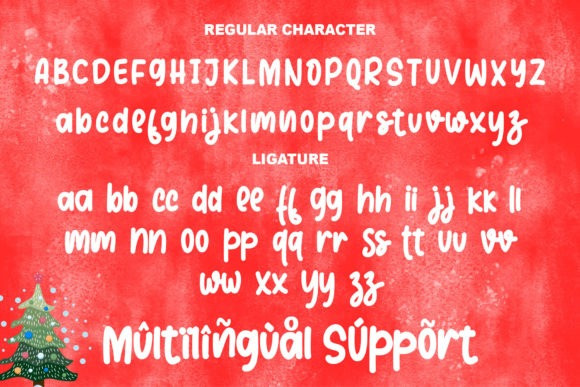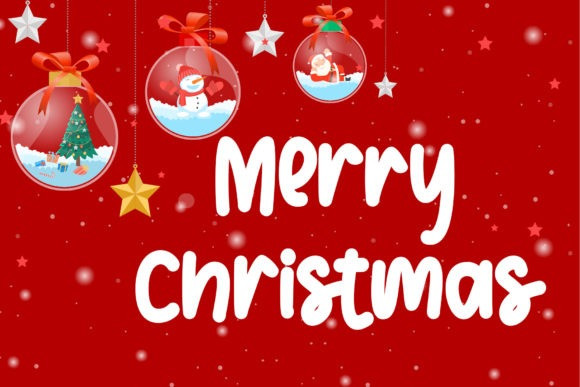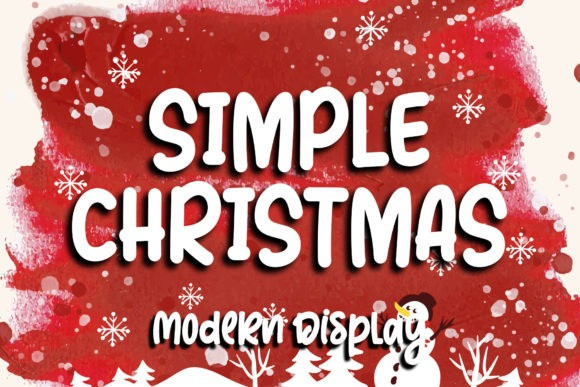
Simple Christmas Font
Simple Christmas Display Font is a fun, adaptable and casual display font. Add it to your most creative ideas, and notice how it makes them stand out!